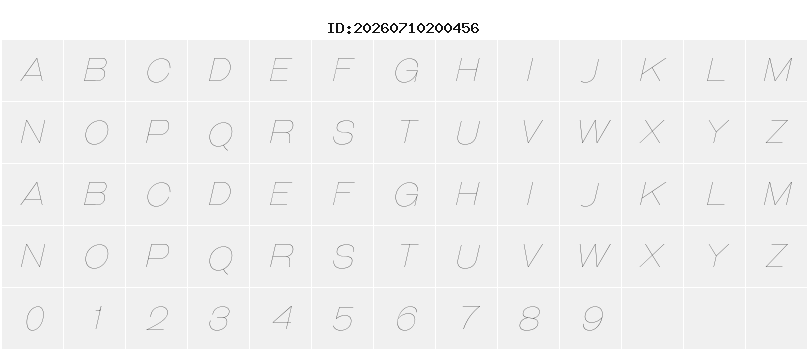
• Font Name: Galderglynn Titling Ul
• Designer: Ray Larabie
• Manufacturer: Ray Larabie
About Galderglynn Titling Ul.ttf
Galderglynn Titling Ul.ttf is a modern, elegant sans-serif font designed for ultimate readability and visual harmony. Perfect for branding, headlines, web design, and print materials.